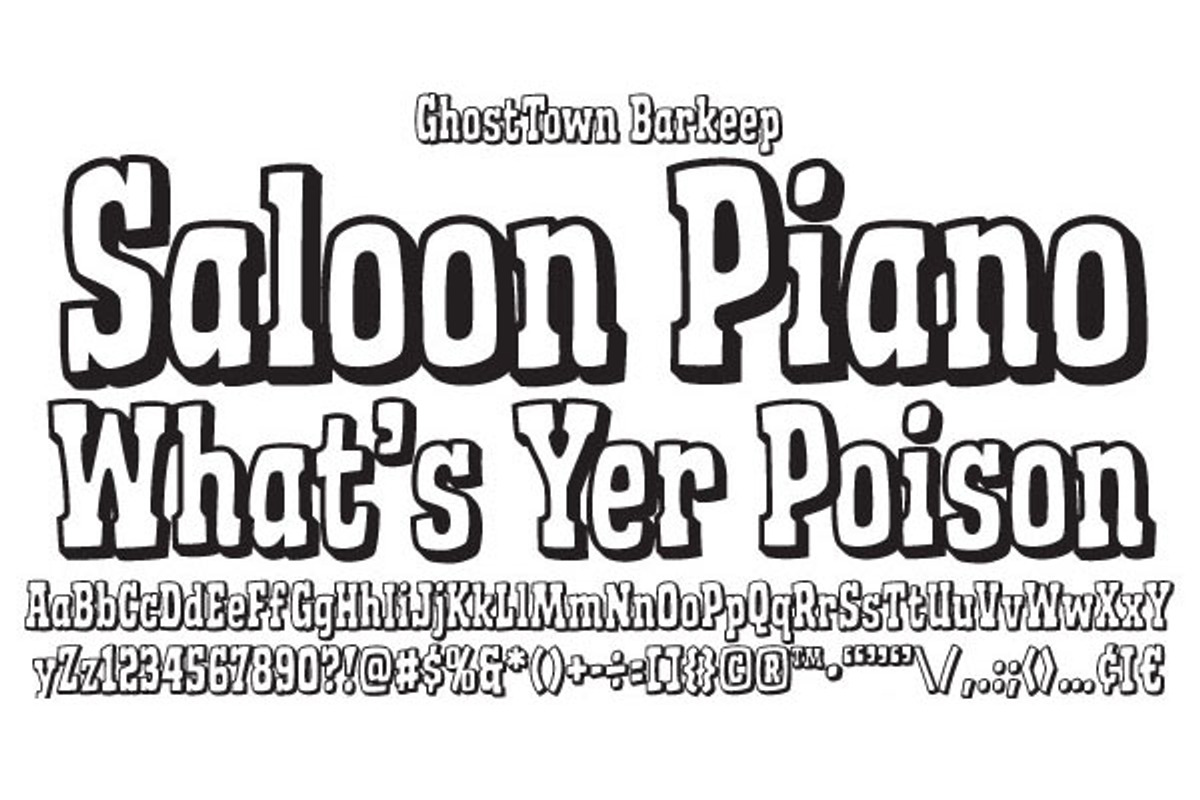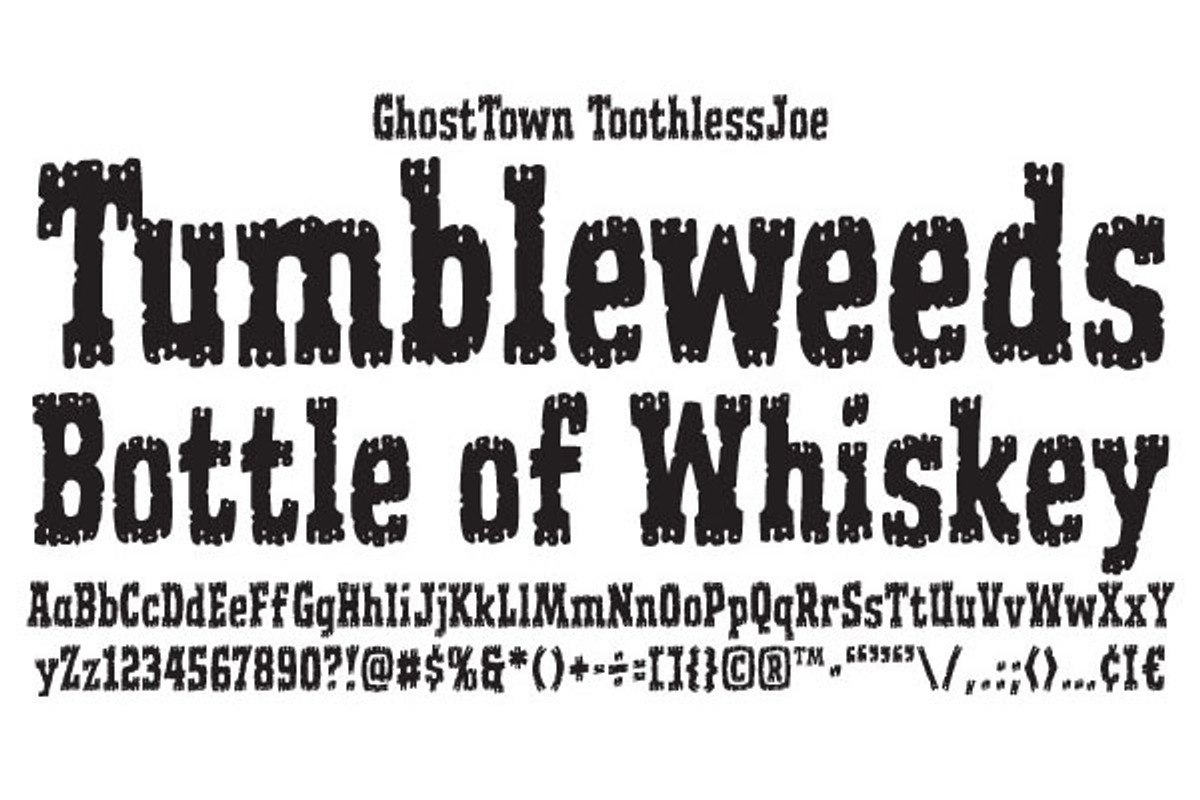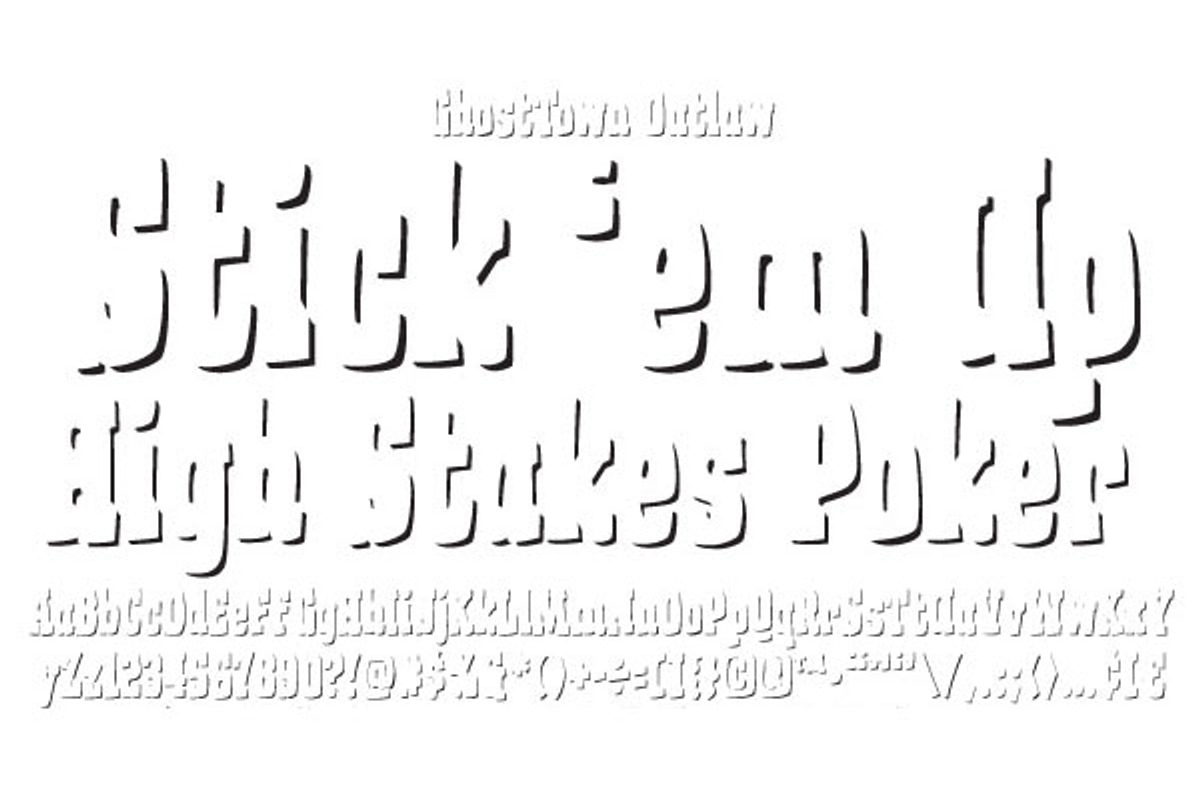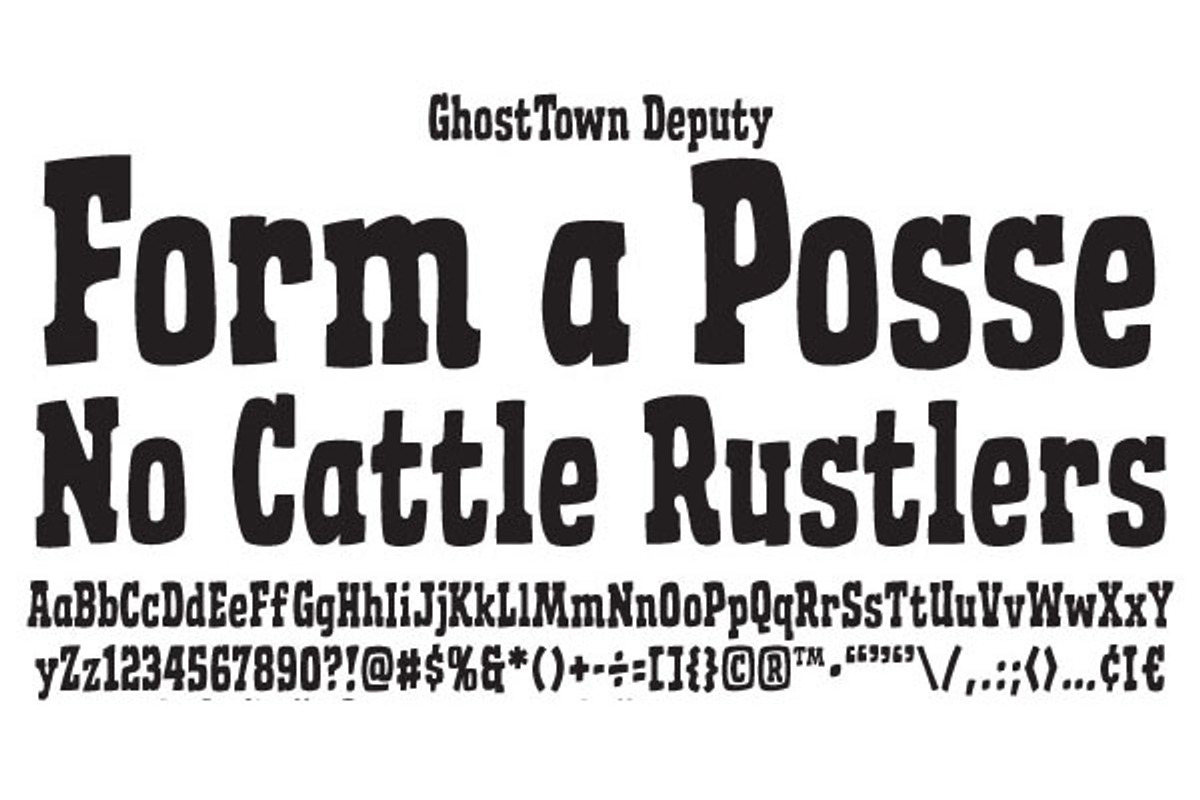
Ghost Town - old west poster font
Ghost Town - old west poster font by Comicraft Fonts is a font selected for branding, posters, packaging, typography.
Why Ghost Town - old west poster font is worth a look
Ghost Town - old west poster font by Comicraft Fonts fits naturally into Branding, posters, packaging, typography.